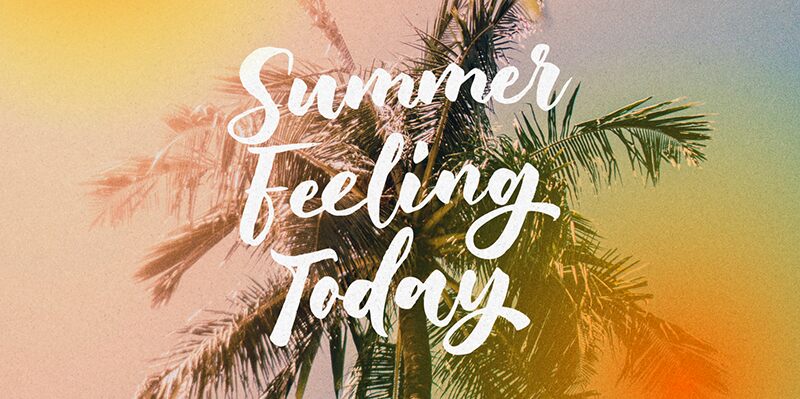
Born Pacific font by Riyadh Rahman of Ergibi Studio is an elegant and expressive brush typeface with a contemporary flair. This stylish and sophisticated free handwritten font features flowing strokes that appear naturally written, making the overall design friendly and aesthetically pleasing.
Born Pacific is suitable for website headers, blogs, magazines, logos, quotes, invitations, clothing lines branding designs packaging interface appearance crafts decor home signage cards book covers.